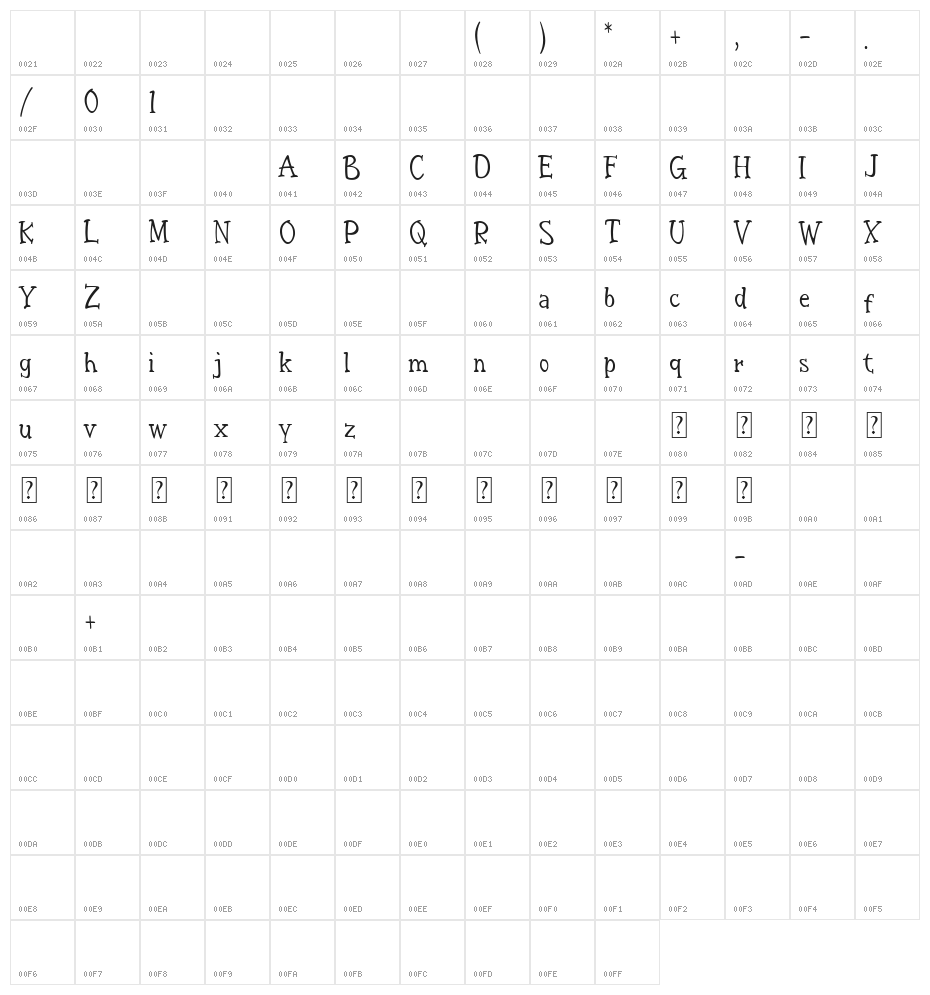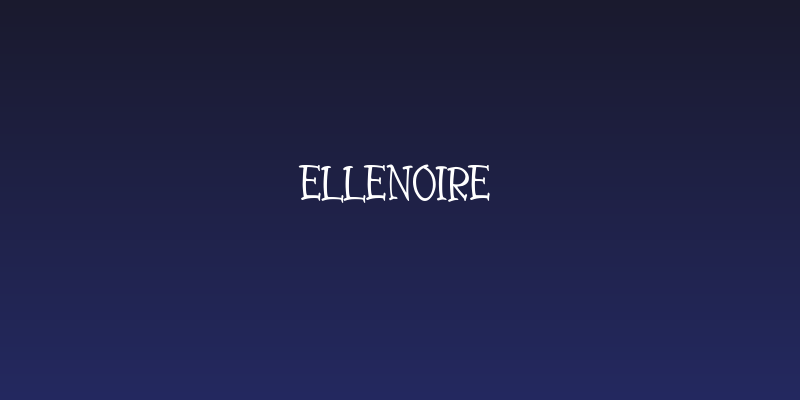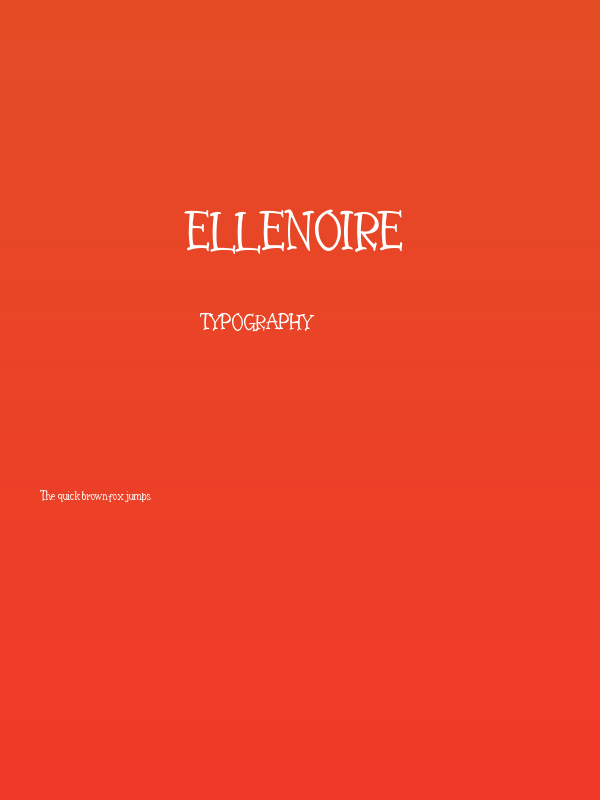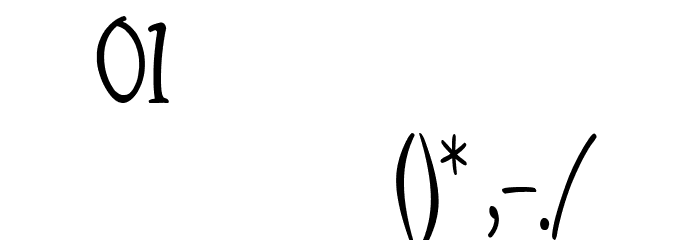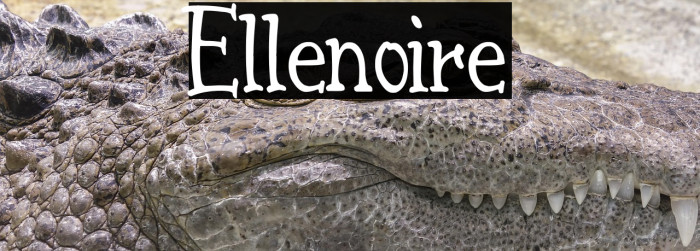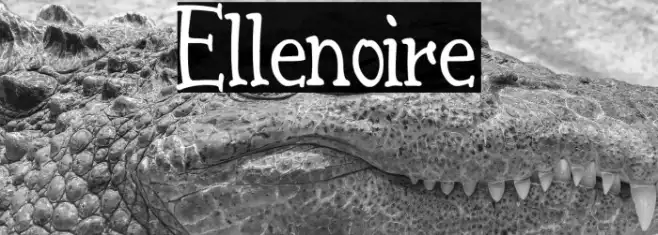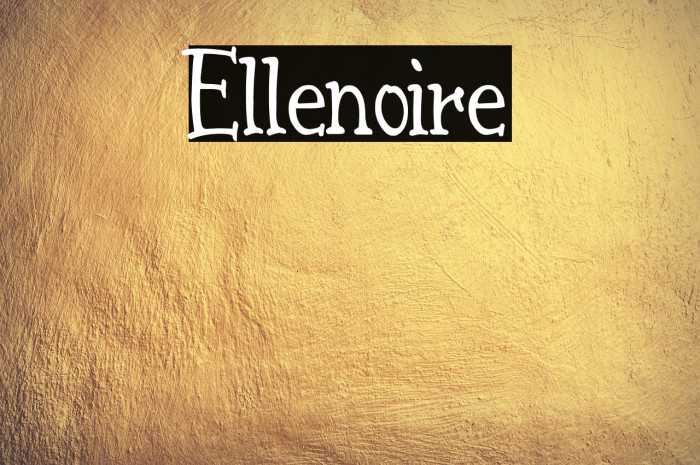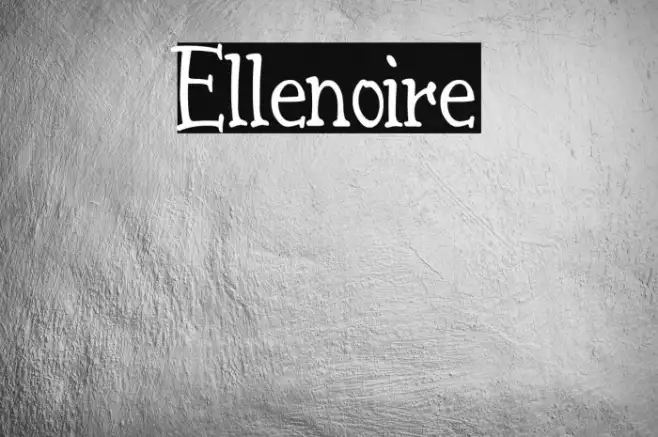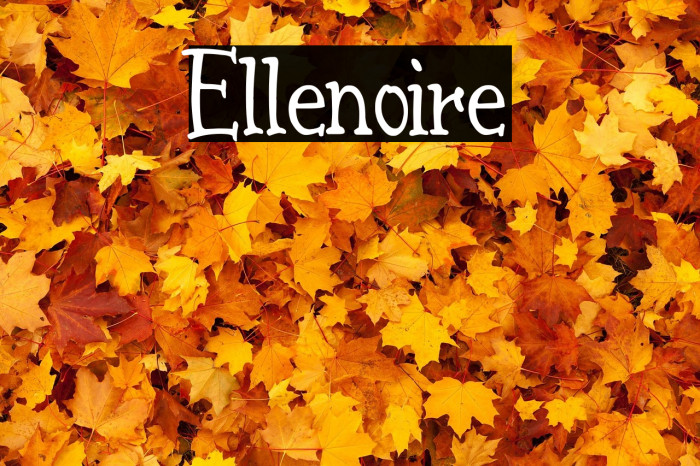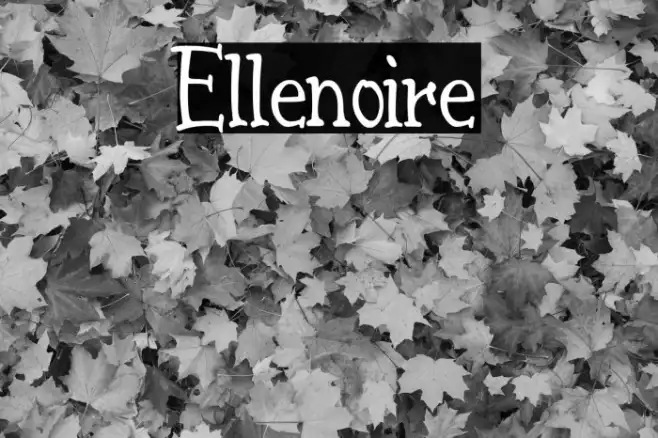
Ellenoire Font
Ellenoire Description
This font features a playful and whimsical style with a hand-drawn appearance. The characters have a unique, slightly irregular form that adds a sense of charm and personality. The uppercase letters are bold and prominent, while the lowercase letters maintain a consistent flow with rounded edges. The numbers are distinct and easily readable, matching the overall quirky aesthetic. Special characters are creatively designed, enhancing the font's artistic appeal. The strokes are moderately thick, providing a balanced contrast that ensures legibility while maintaining its decorative nature.
| Proposed Projects | Ideal for children's books, creative posters, playful branding, and artistic invitations. |